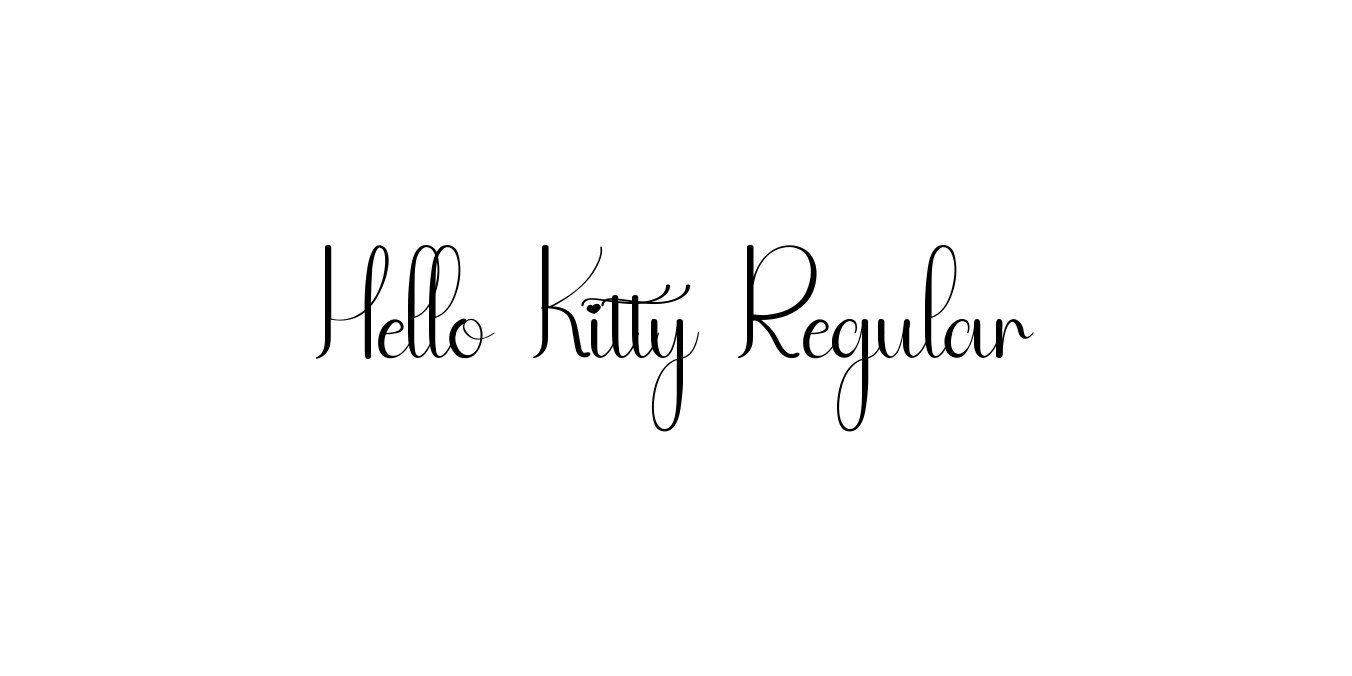
Hello Kitty Regular
| Category | Decorative |
The Hello Kitty Regular font is a charming and whimsical typeface that embodies the iconic 'Kawaii' aesthetic established by the world-renowned Japanese brand. Featuring soft, rounded strokes and a friendly, approachable structure, this font is designed to mirror the innocence and simplicity associated with the Hello Kitty character. It excels in bringing a sense of warmth and playfulness to any creative project, making it a favorite among fans of pop culture and cute design elements.
Throughout its history, the Hello Kitty Regular style has been utilized across a vast array of global merchandise, from stationery to digital media. Its high legibility despite its decorative nature allows it to work effectively in both headings and short blocks of text. As a staple of character-based typography, it remains a go-to choice for designers looking to inject a touch of nostalgia and joy into their visual storytelling.
Hello Kitty Regular Best Uses
Perfect for creating adorable and inviting cards for children's parties.
Enhances the visual appeal of Instagram stories and Pinterest pins with a cute touch.
Ideal for custom t-shirts, hoodies, and children's clothing lines.
Great for designing stickers, notebooks, and personalized letterheads.